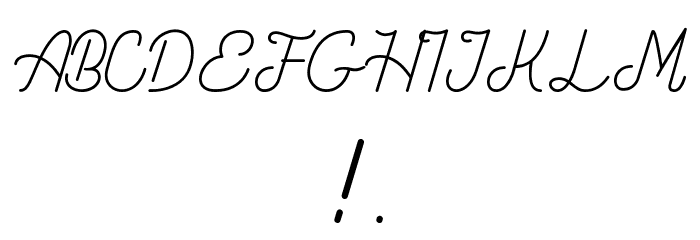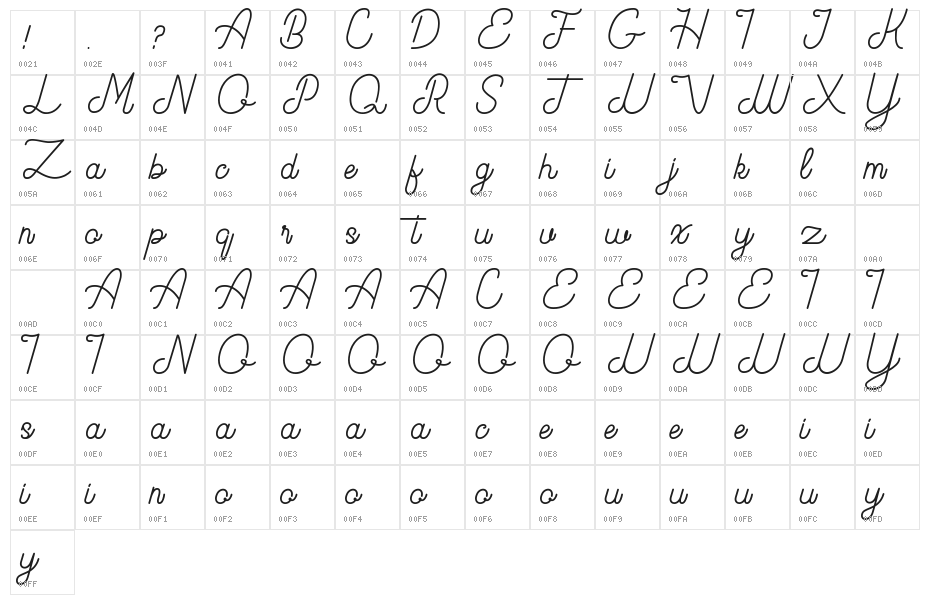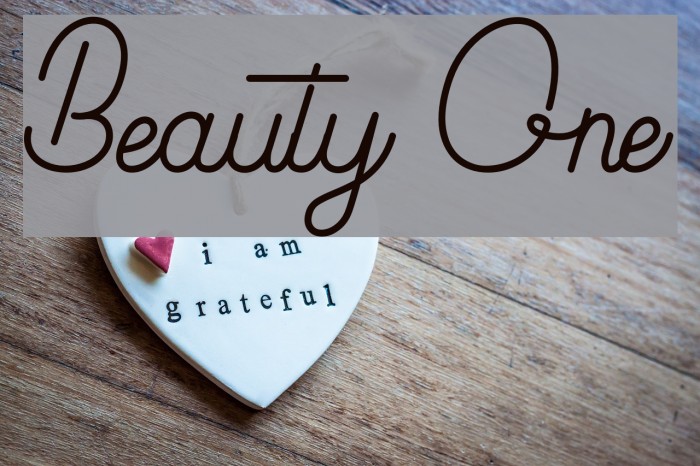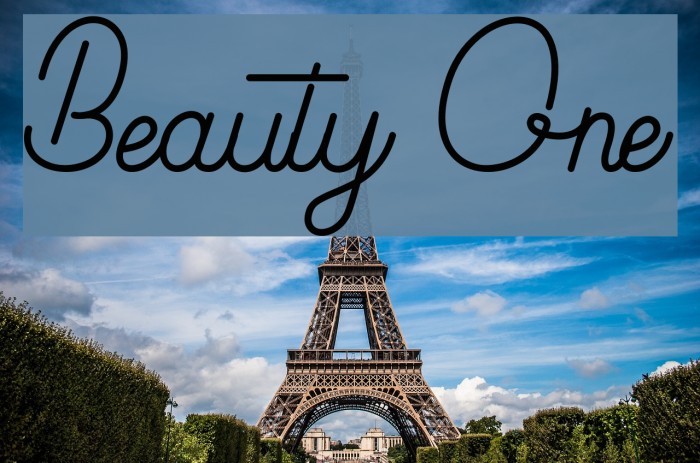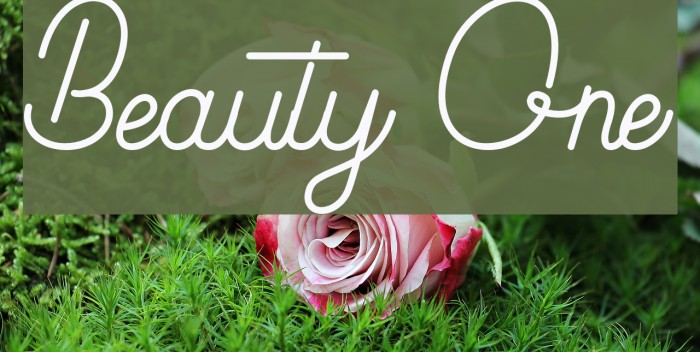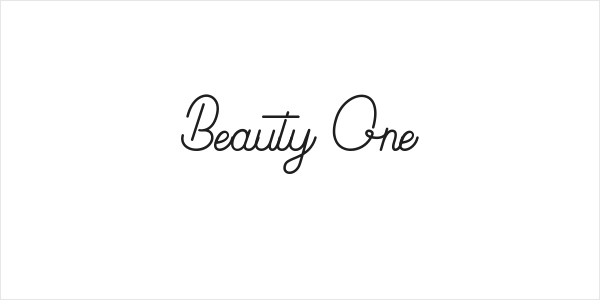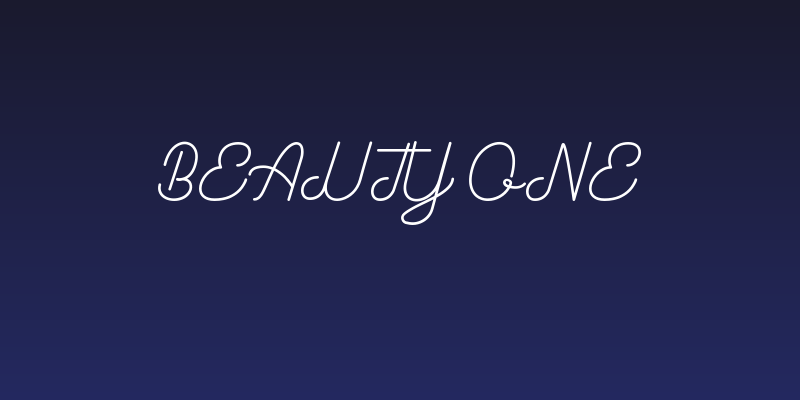
Beauty One Font
Beauty One Description
This elegant script font features a flowing, cursive style with smooth, connected strokes that create a sense of fluidity and grace. The uppercase letters are slightly more ornate, with subtle loops and swirls that add a touch of sophistication. The lowercase letters maintain a consistent rhythm, enhancing readability while retaining the decorative flair. The numerals and special characters are designed to complement the overall style, ensuring a cohesive look across all text elements. This font is perfect for projects that require a personal, handwritten touch, such as invitations, greeting cards, and branding materials.
| Use Case | Headlines, Invitations, Branding |
| Proposed Projects | Ideal for wedding invitations, personal branding, greeting cards, and elegant stationery. |